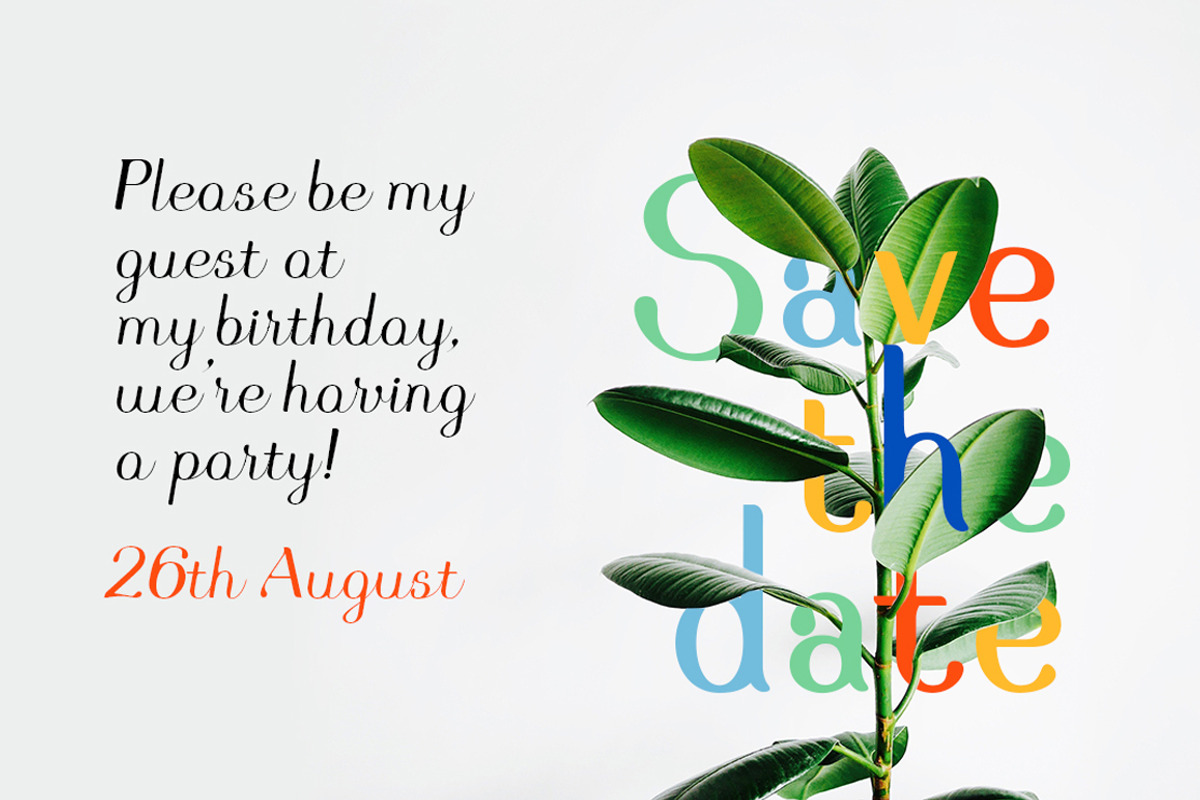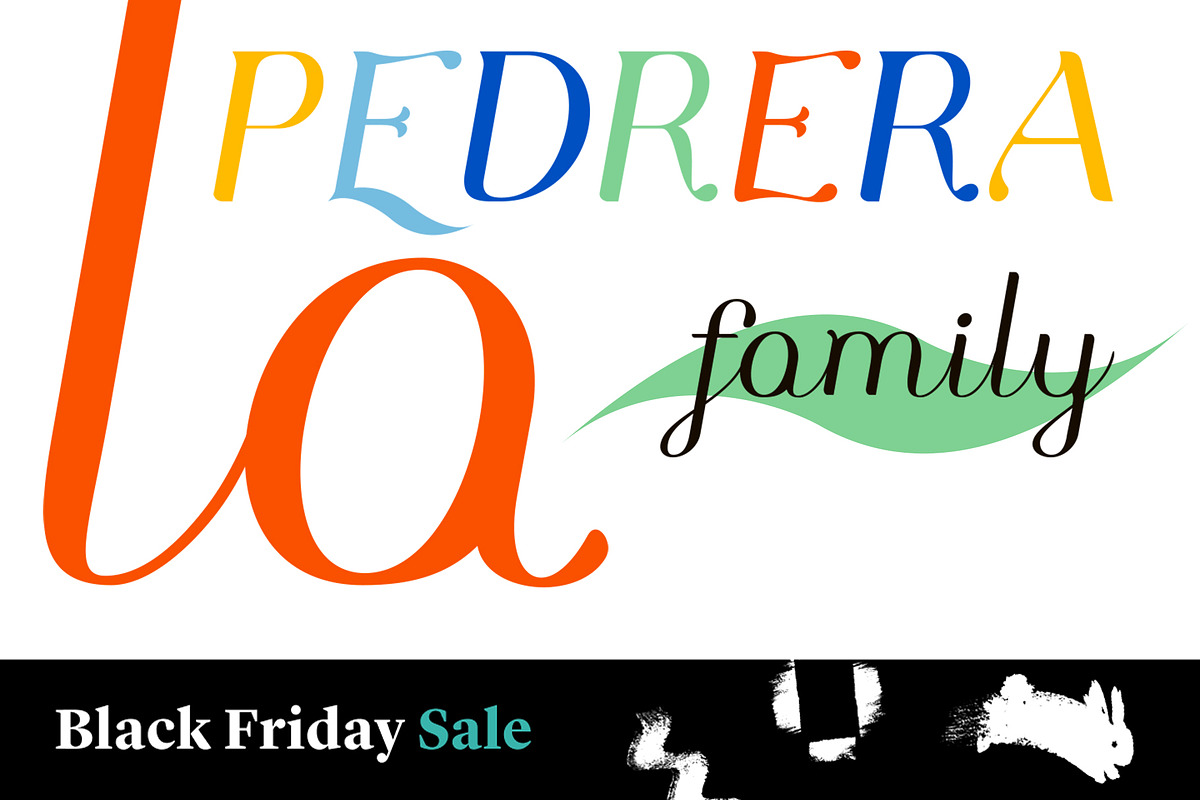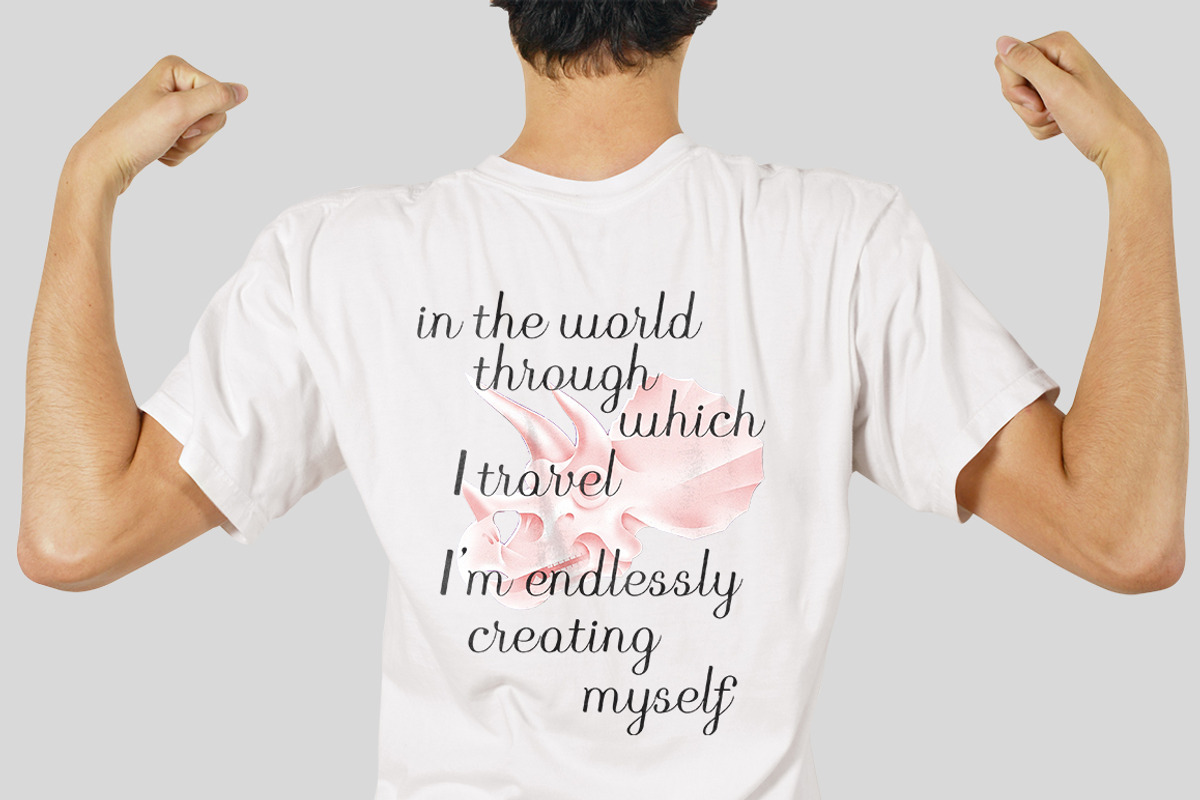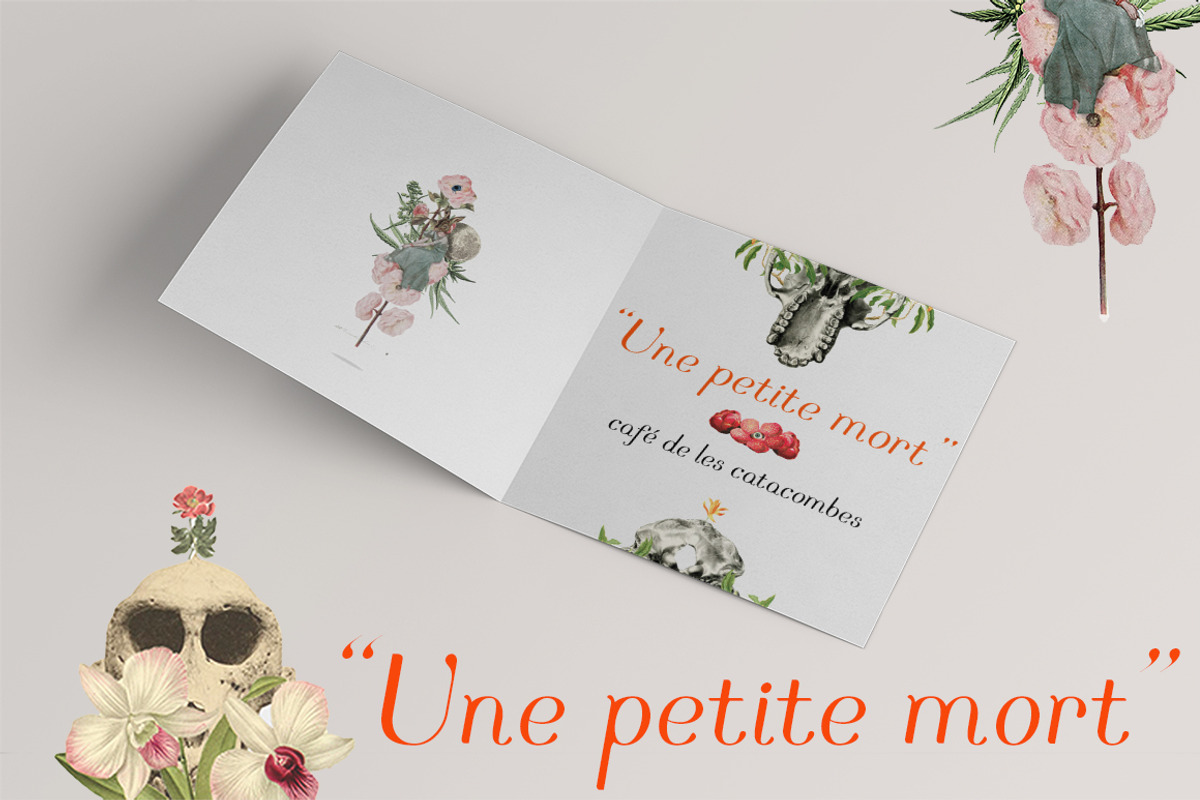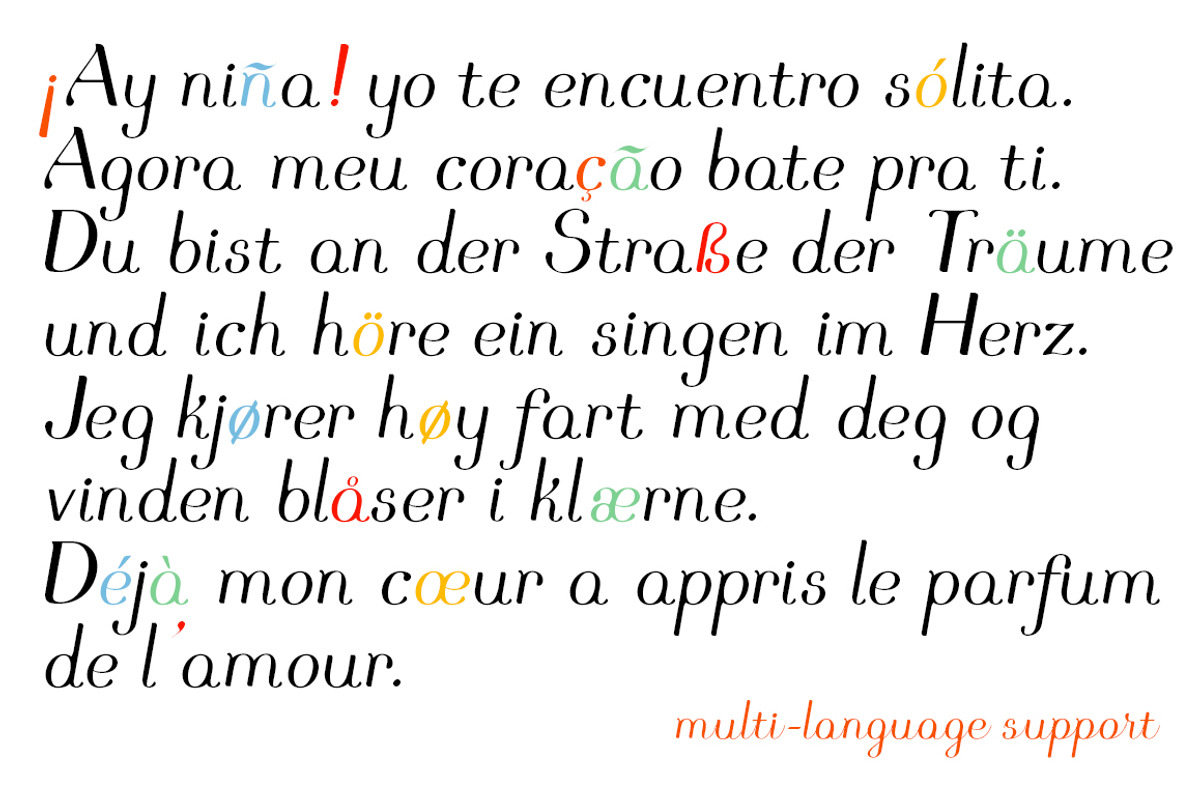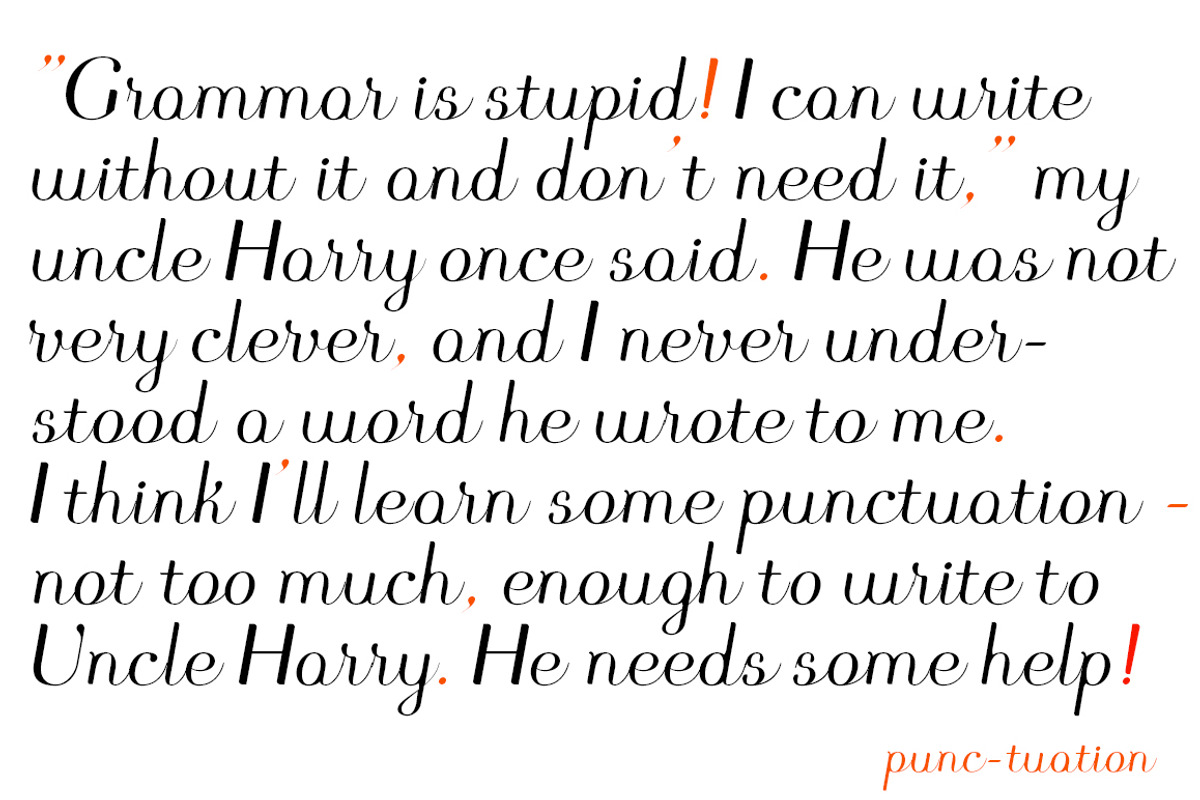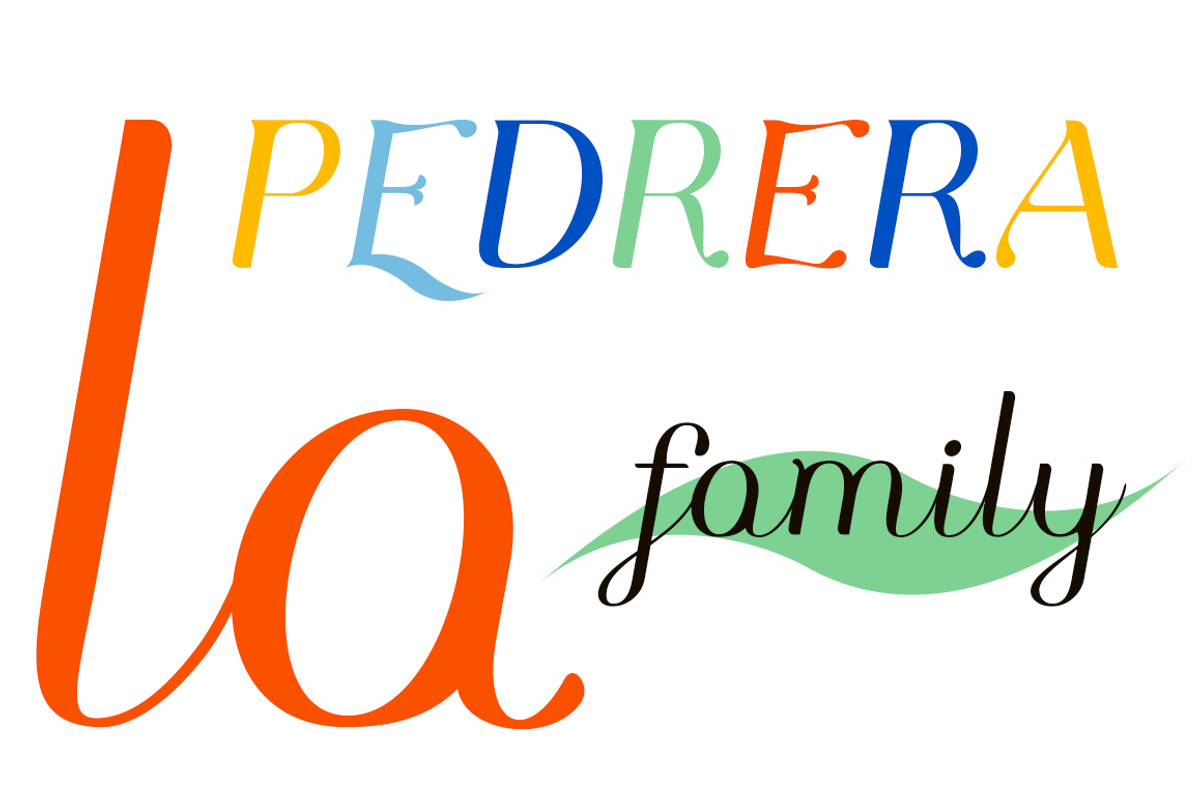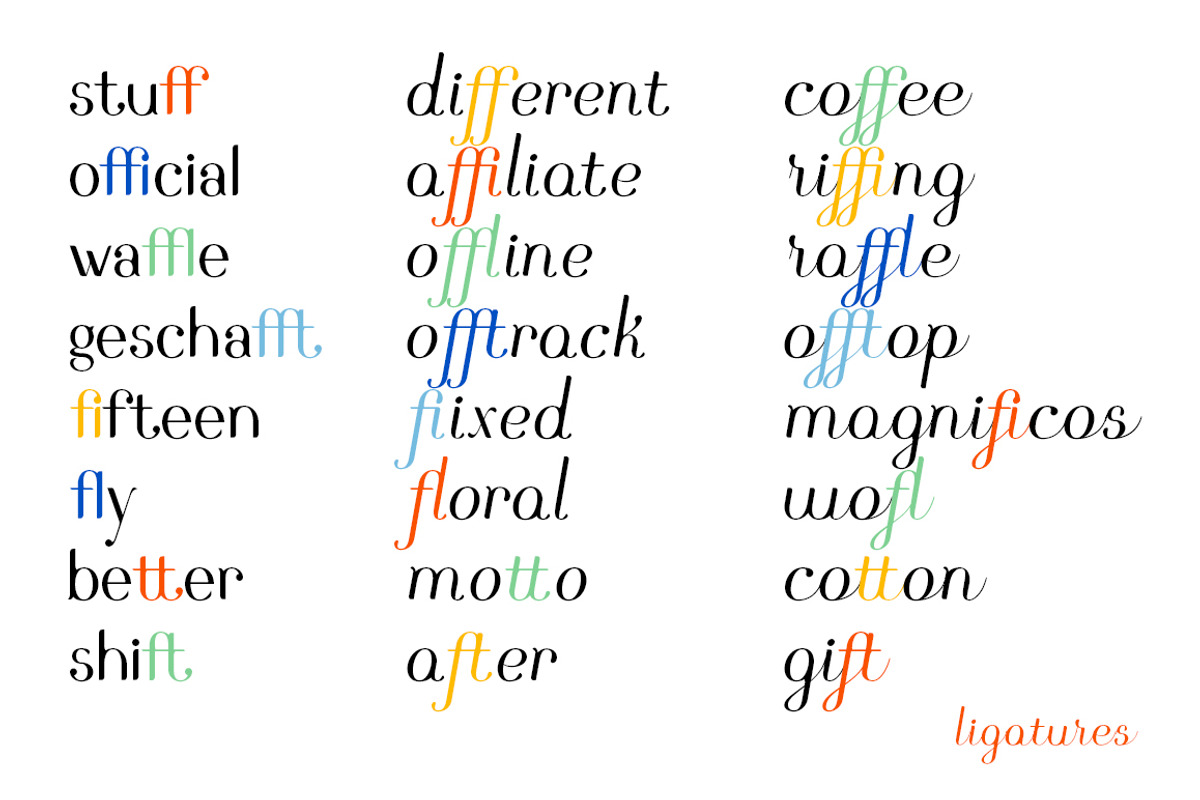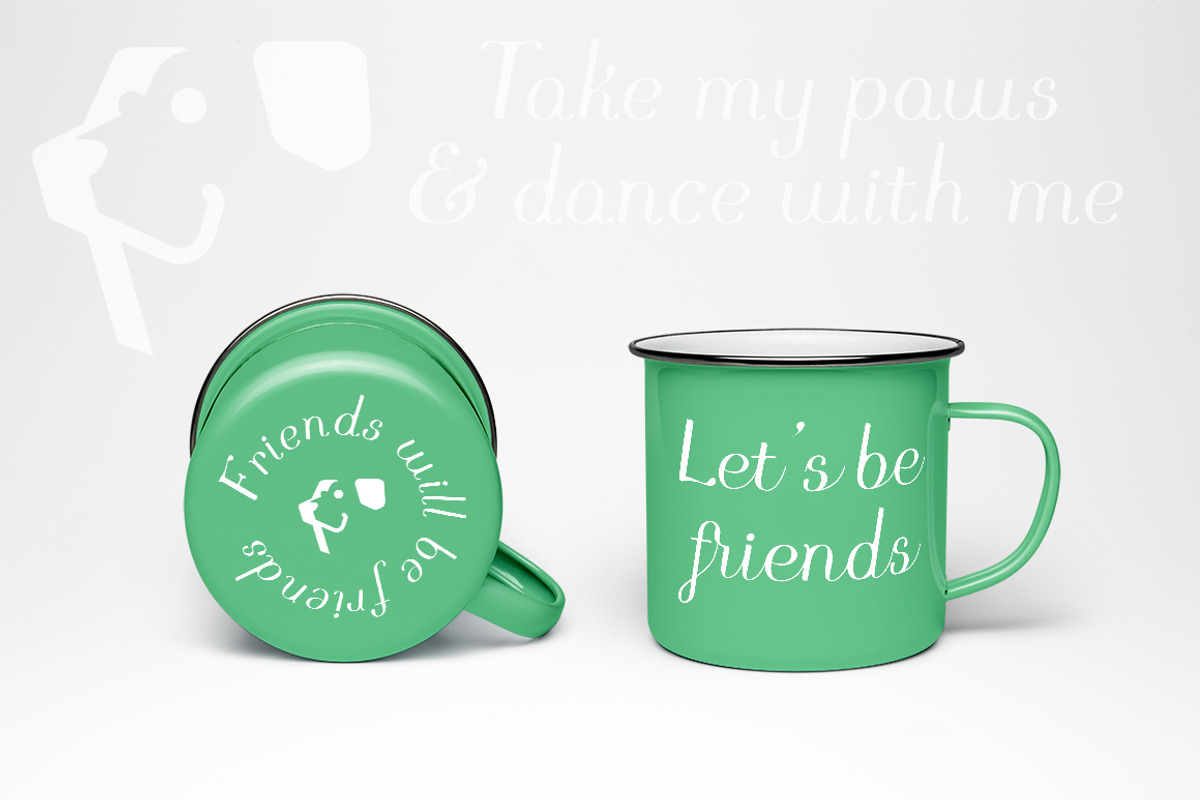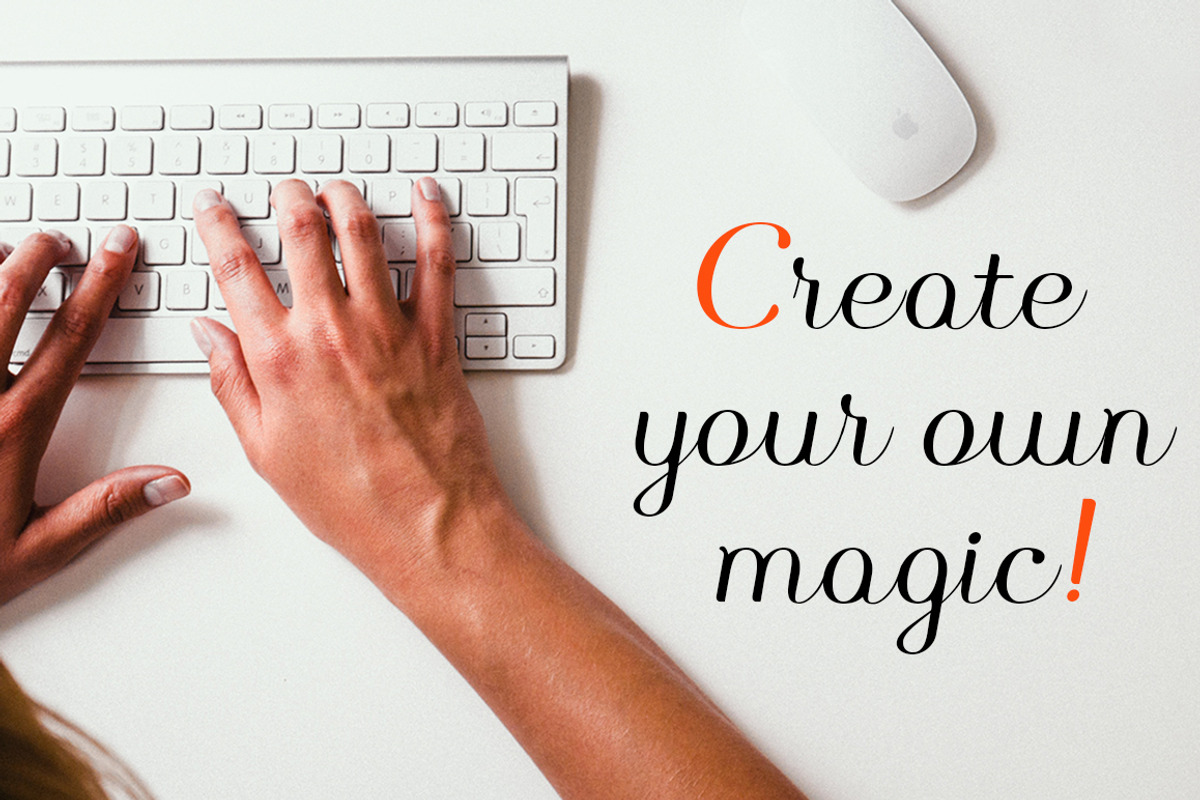
Pedrera family
Introducing a vintage typeface Pedrera It is simple pleasure for your eyes. But in the same time, fonts from the family could be used for card signing or product design, they have characters with tiny details that fascinate your attention. Each font is PUA encoded and has foreign symbols. Pedrera family has 6 fonts:
- Bold
- Italic
- Italic Bold
- Script
- Script Bold